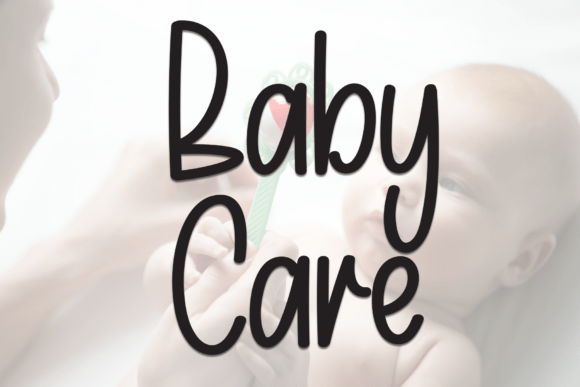
The Sweet Allure of Bucket Font
Have you ever found yourself scribbling in a notebook, lost in the flow of creative thoughts and emotions, only to stumble upon a perfect, handwritten font that captures the essence of your feelings? That’s exactly what happened to us when we discovered the Bucket Font.
| 👤 Author | DN Creative |
Bucket Font is a charming, calligraphy typeface designed to evoke a sense of romance and sweetness. Its unique, dancing characters along the baseline add a touch of elegance to any design. Whether you’re crafting a logo, wedding invitation, or t-shirt design, Bucket Font is the perfect companion to bring your creative vision to life.
As designers, we’re always on the lookout for versatile and captivating fonts like Bucket Font. Its value lies in its ability to add a personal touch to various projects, making it an indispensable tool in our creative arsenal.
Bucket Font Key Features
- Unique Characteristics: Bucket Font features a distinctive, hand-drawn style with a mix of rounded and angular shapes, making it perfect for creative and playful designs.
Designer Review: Bucket Font
Overall, I think Bucket Font has some interesting qualities that make it worth considering for your next project. ✨ One thing I appreciate is its uniqueness – it’s not a standard sans-serif font, but it still feels approachable and friendly. The rounded edges and subtle curves give it a playful touch that could work well for branding or packaging design.
✨ Another plus is its versatility – Bucket Font comes in a range of weights and styles, from light and delicate to bold and confident. This makes it easy to find the right version to match your design’s tone and atmosphere.
- ⚠️ While Bucket Font is a great choice for body text, I think it might not be the best option for large blocks of text or headlines. The rounded edges can make it harder to read at bigger sizes.
- ⚠️ Additionally, I found that the font can feel a bit inconsistent across different devices and screen sizes. This might require some extra fine-tuning to get the best results.
Overall, I think Bucket Font is a solid choice for designers looking for a unique and versatile font. While it may have some limitations, its strengths make it worth considering for the right project.
Bucket Font is ideal for creating playful, casual designs. Use it for:
- Social media graphics
- Blog posts
- Children’s educational materials